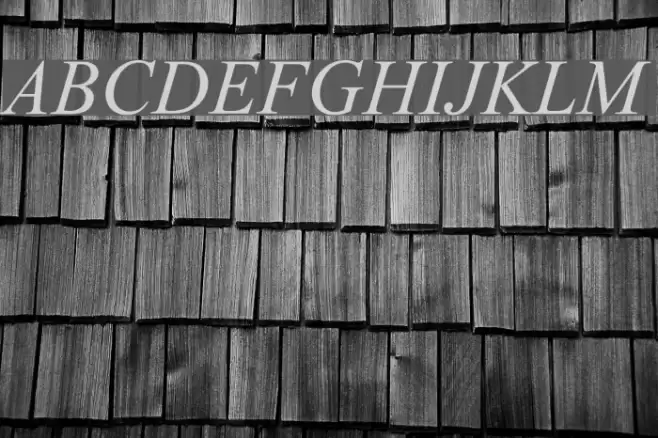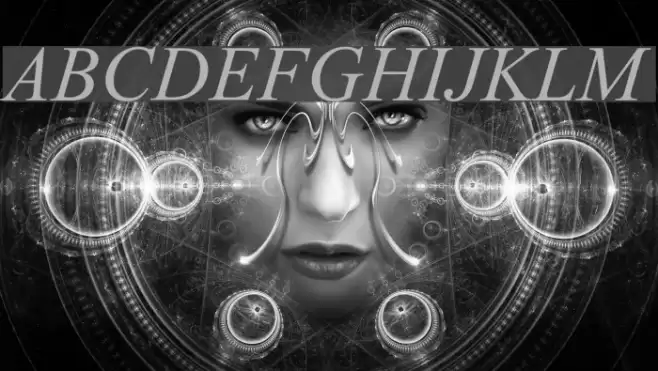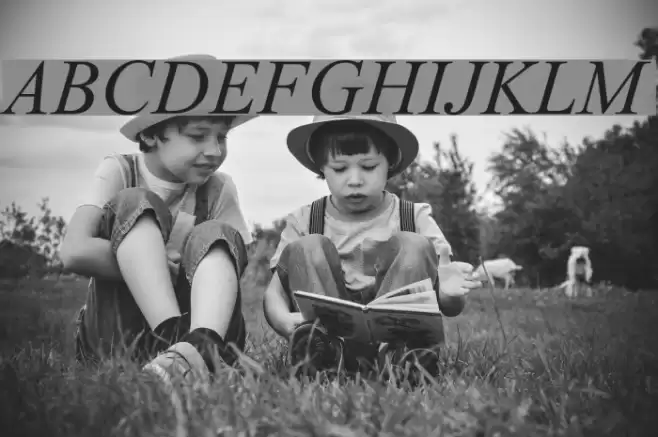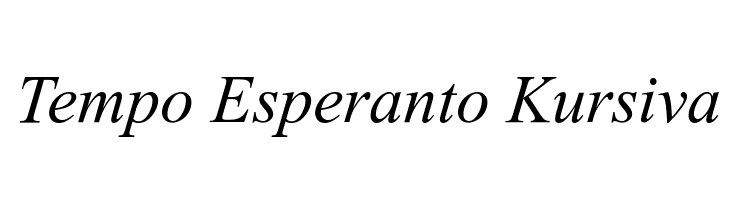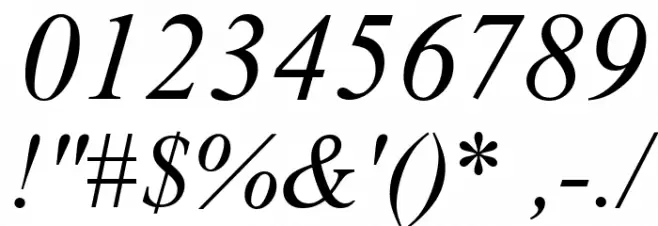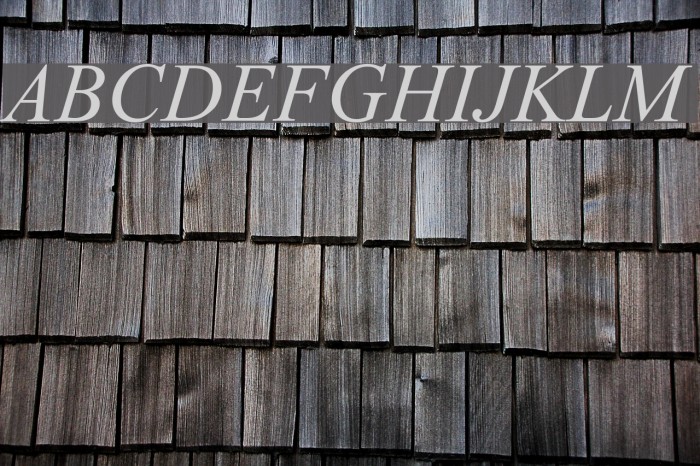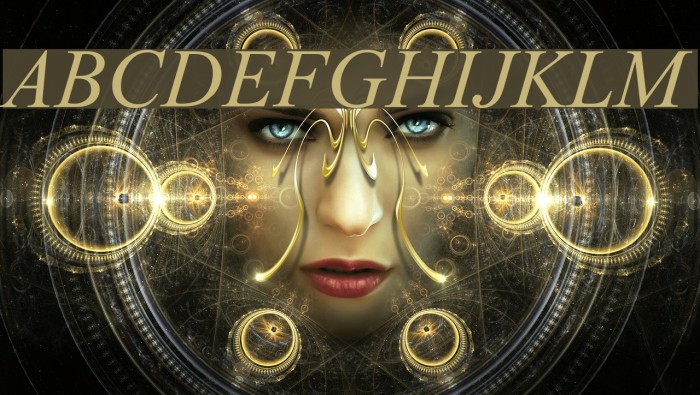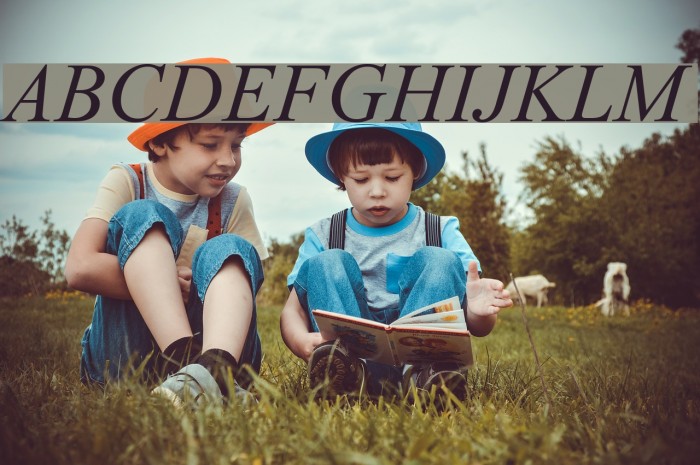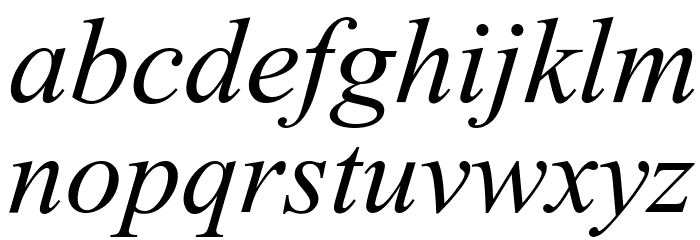
Tempo Esperanto Kursiva Font
Tempo Esperanto Kursiva Description
This font exhibits a classic and elegant style with a slight slant, giving it an italicized appearance. The characters are well-proportioned, featuring smooth curves and sharp serifs that add a touch of sophistication. The uppercase letters are tall and commanding, while the lowercase letters maintain a consistent flow, enhancing readability. The numerals are clear and distinct, making them suitable for both formal and informal contexts. Special characters are well-integrated, maintaining the overall aesthetic of the font. The design is versatile, suitable for a variety of applications where a touch of elegance is desired.
An elegant, italic serif font with smooth curves and sharp serifs from Uncategorized fonts.
- Proposed Projects: Ideal for wedding invitations, formal documents, branding, and editorial design.
- Overall Style: Classic
- Use Case: Headlines, Body text, Logos